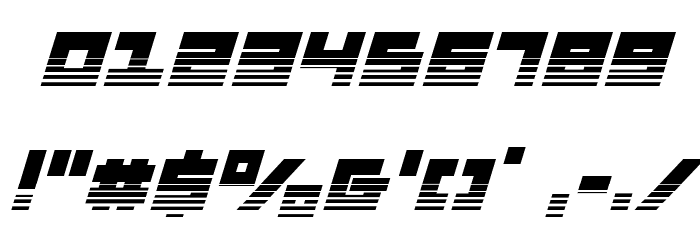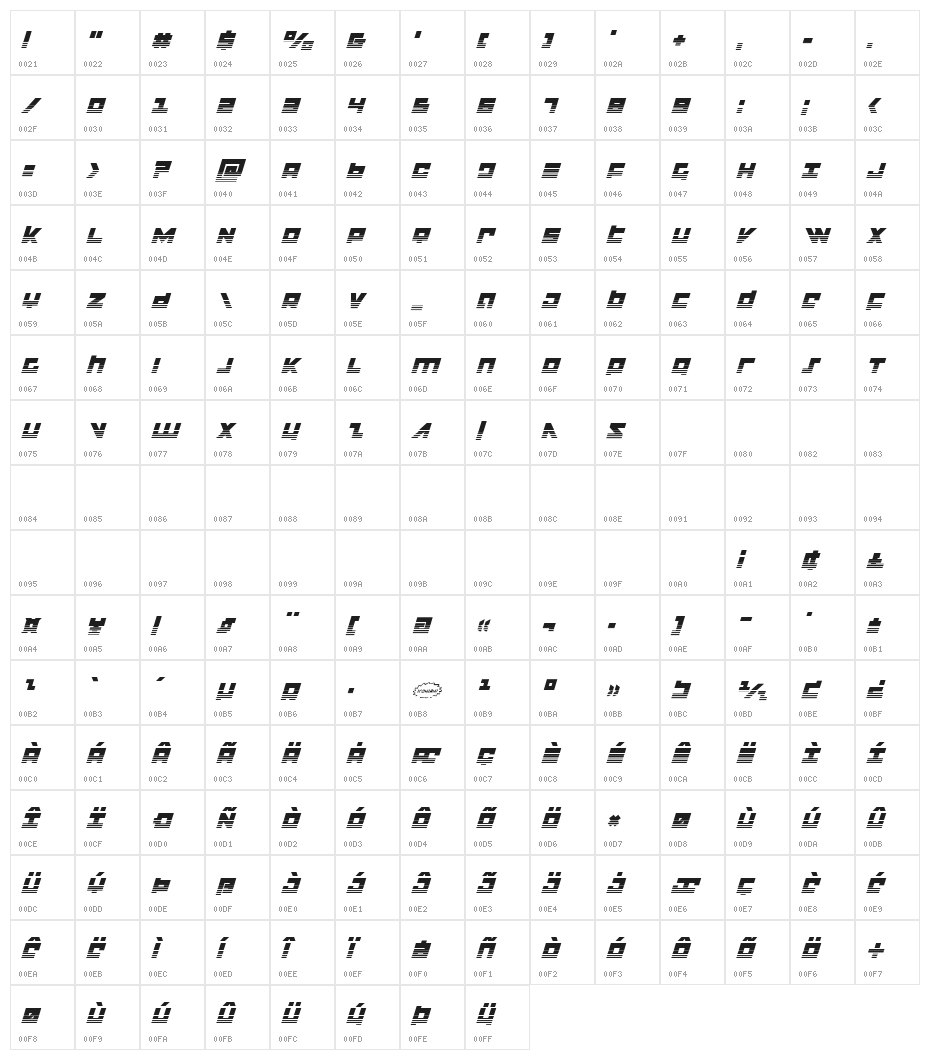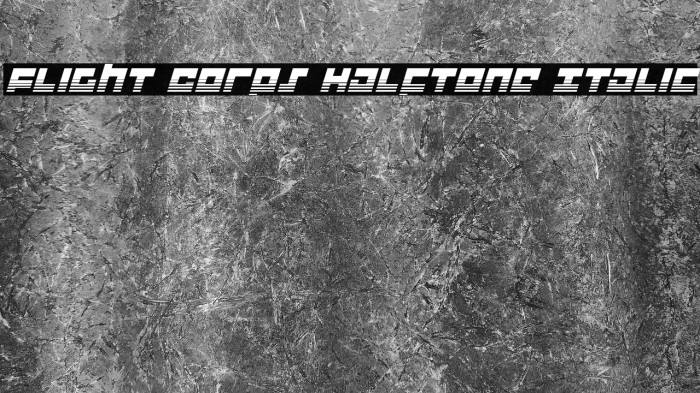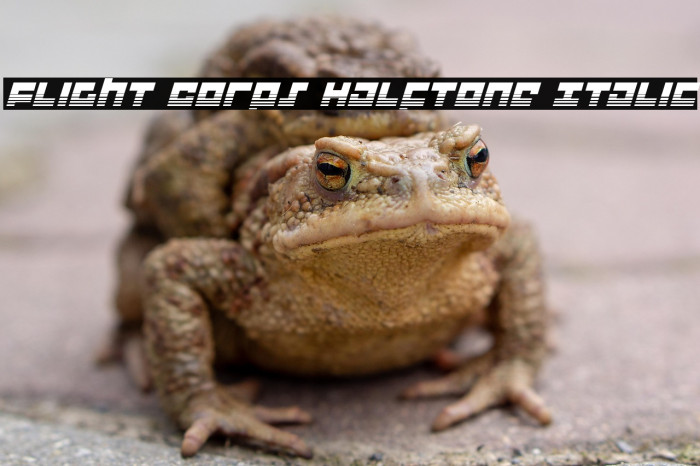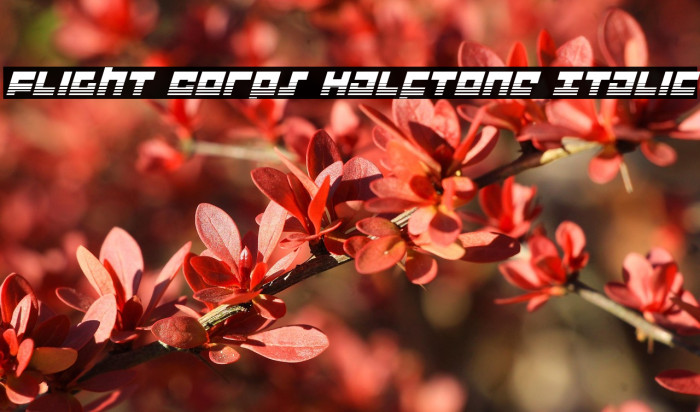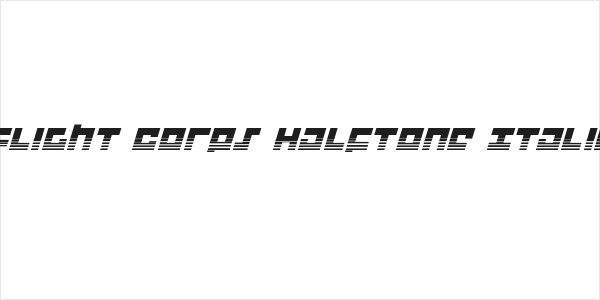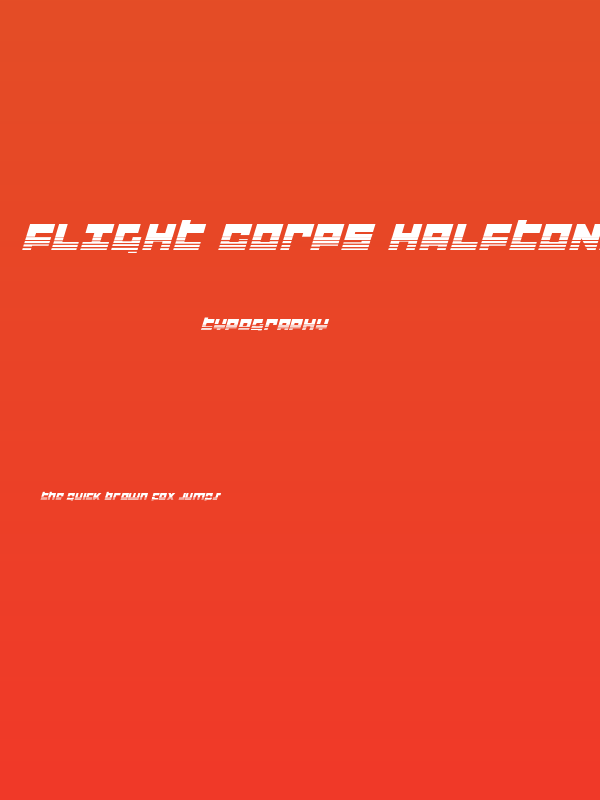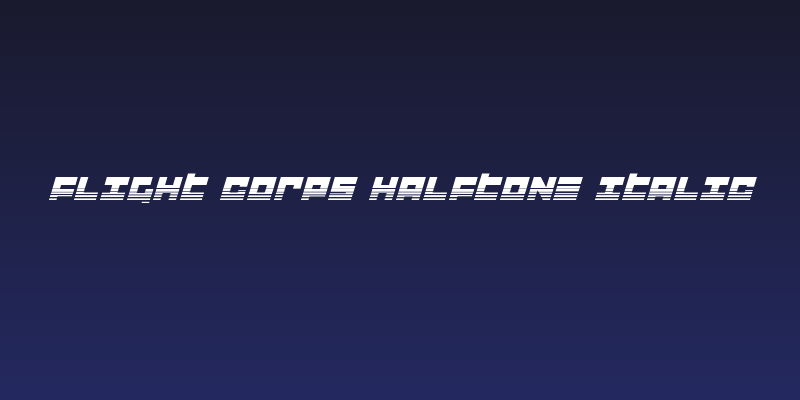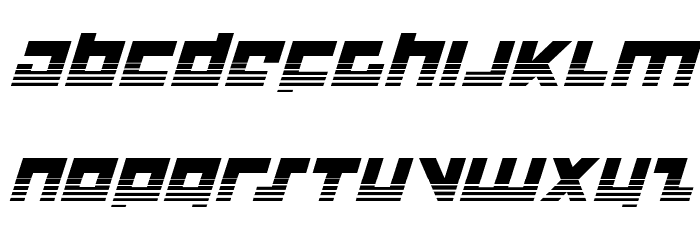
Flight Corps Halftone Italic Font
Flight Corps Halftone Italic Description
This font features a bold and dynamic style with a distinct halftone effect that gives it a futuristic and high-tech appearance. The characters are italicized, adding a sense of motion and speed, which is further emphasized by the horizontal lines cutting through each letter. The uppercase and lowercase letters maintain a consistent design, with sharp angles and a geometric structure. The numerals and special characters follow the same aesthetic, ensuring uniformity across all text. This font's unique design makes it stand out, ideal for projects that require a modern and edgy look.
| Proposed Projects | Ideal for technology branding, sci-fi posters, video game titles, and futuristic-themed designs. |